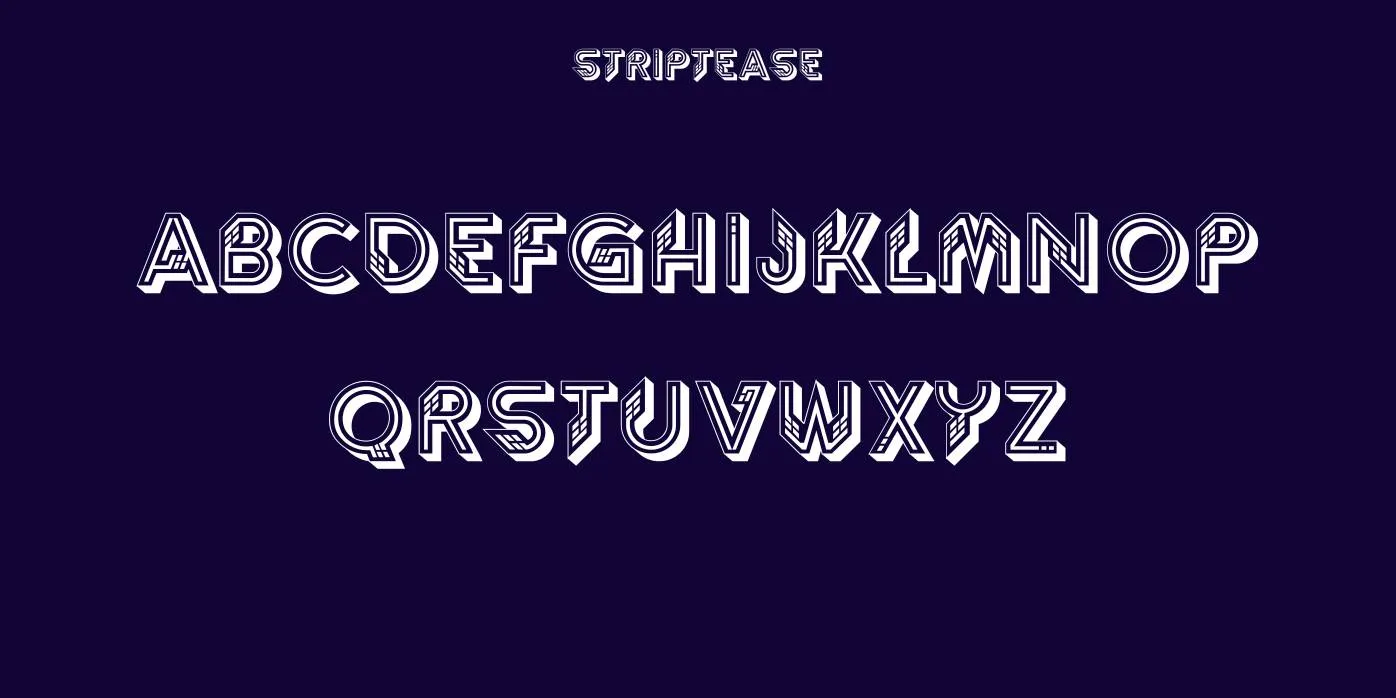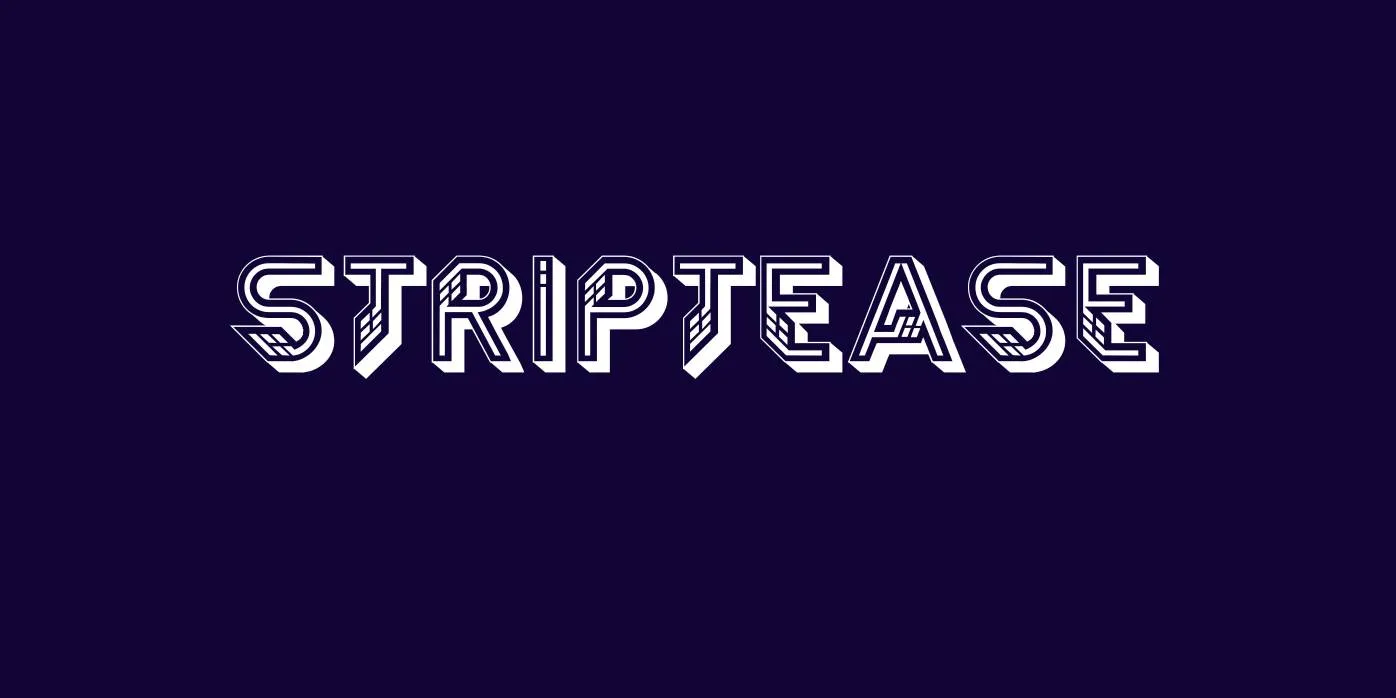
Striptease Font
Introducing a fancy typeface. Vladimir Nikolic designed the Striptease Font. This texture is highly readable and playful. The characters of this typeface look hollow as shadows fall around the words of texture.
This amazing texture has only one style. The family style is known as regular. The characters of this font are pretty, zig-zag pattern and a hollow look. They font contains all letters, number systems, functions like special words, etc.